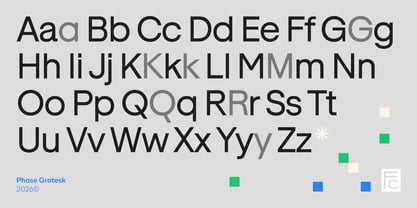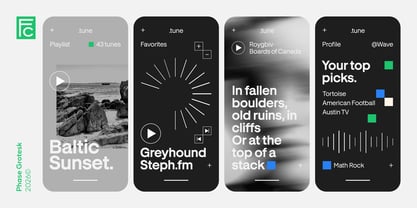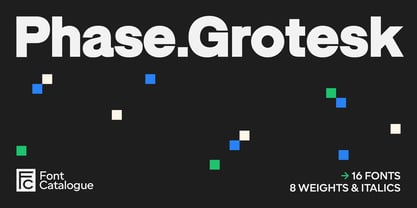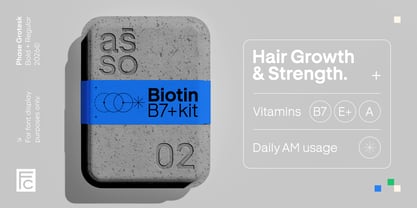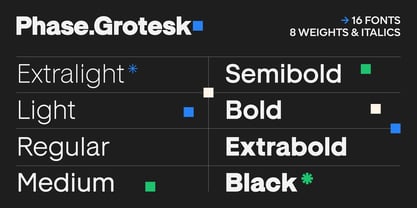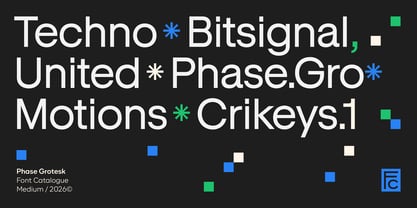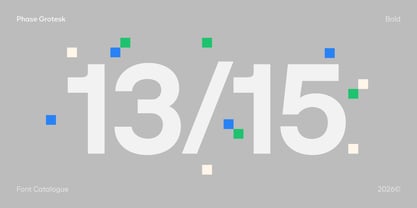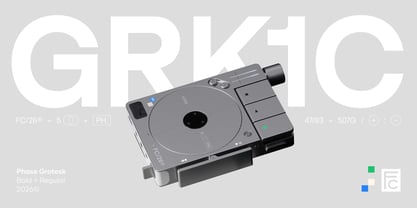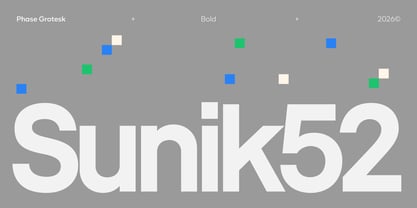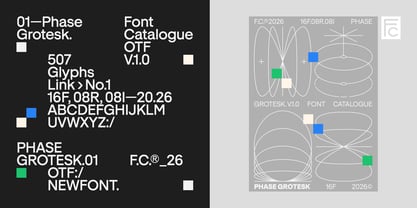
Phase Grotesk
The Phase Grotesk Font Family was designed by Luciano Vergara, Jorge Cisterna, Daniel Hernández, Felipe Sanzana and published by Font Catalogue. Phase Grotesk contains 16 styles and family package options. More about this family
Phase Grotesk is a contemporary sans serif built on a principle of low contrast: stroke widths remain uniform throughout, creating a stable and rhythmic texture. Its curves are tensioned and slightly compressed, deliberately avoiding the perfect circle to achieve a technical character. The apertures are closed — the e, c, and a let in little air — because the family also looks backward, toward those early sans serifs of signage, forgotten catalogs, and vanished foundries, rescuing their weight mismatches and uncorrected optical adjustments that gave them a sincere, unpretentious character.
Those imperfections make themselves felt at large display sizes, but soften at text sizes so reading flow is never compromised. The result is a typeface that holds its own in high-impact typographic compositions — extreme scales, repetitions, overlaps — while remaining functional in interface, editorial, and branding contexts where performance matters as much as presence.
With 16 fonts across 8 weights and matching italics, Phase Grotesk offers a complete system for visual identities that demand both range and consistency.